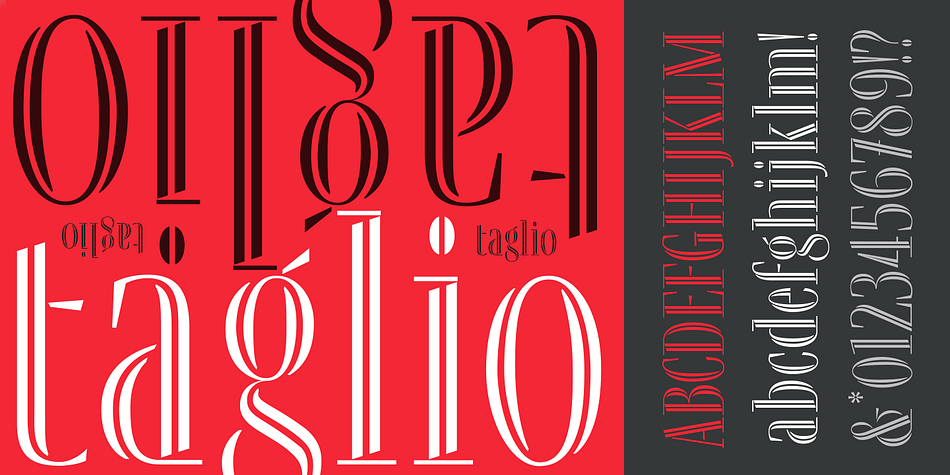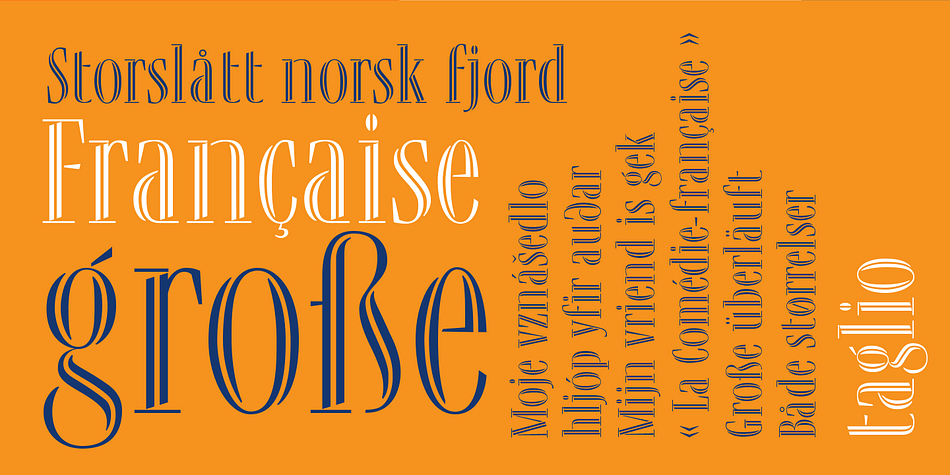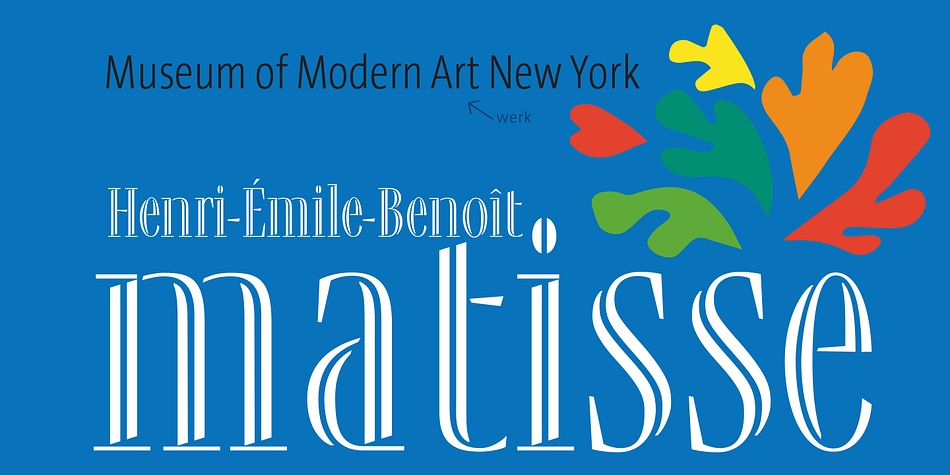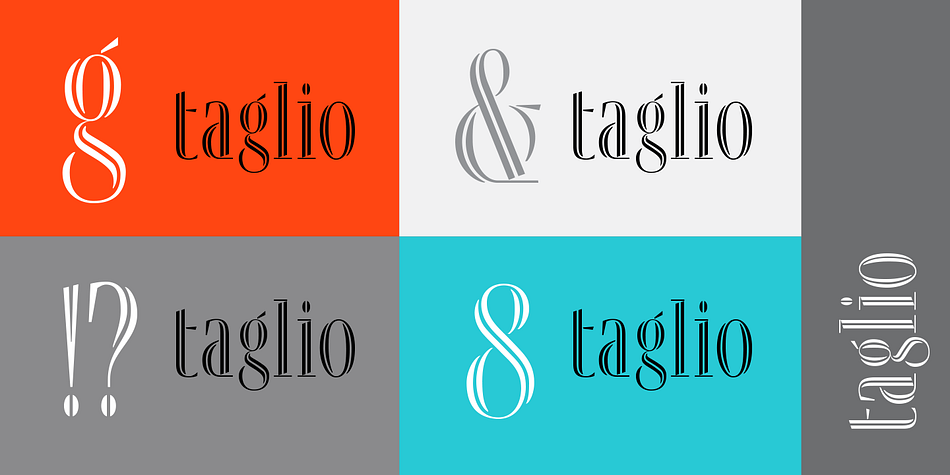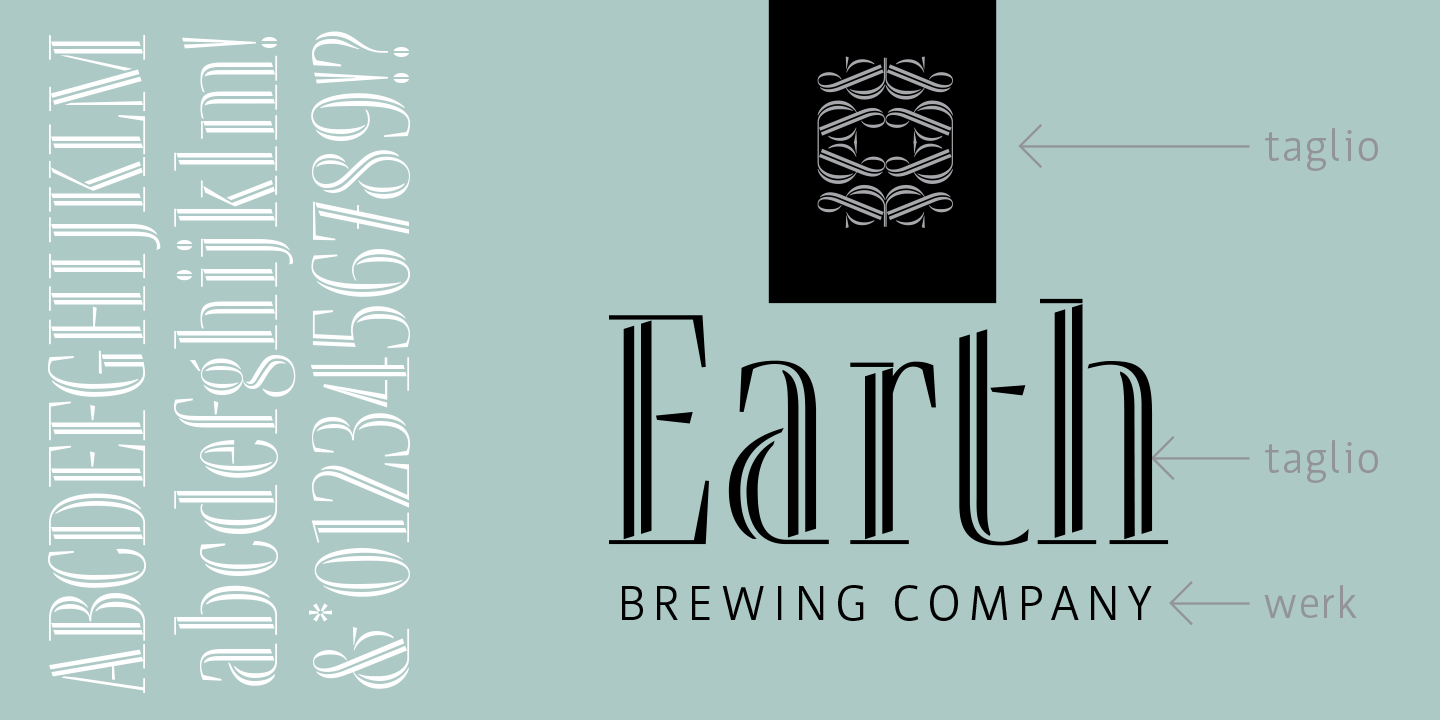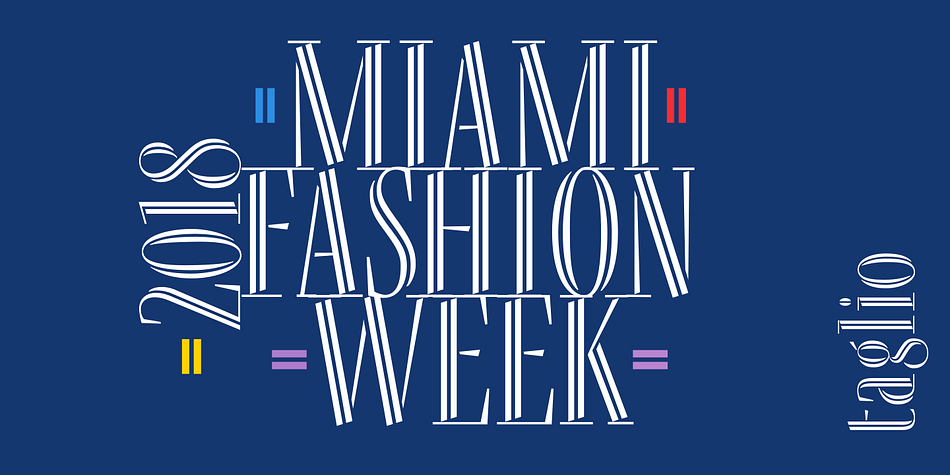
Taglio is a display serif font published by Wilton Foundry.
Taglio’s name is derived from intaglio, which means “incised carving” or “an impression from an engraving”.
Indeed, Taglio looks like an incised engraving with a contemporary calligraphic interpretation. The down strokes start with a single horizontal line that curves into a dual vertical line and ends with the same single line at the base.
The dual elongated strokes create a bold overall impression but is literally twice as sophisticated than if the two lines were solid. That was exactly the goal in creating this font. We managed to create a font that is distinctive, elegant, and crisp that is also intentionally stencilled for more flexibility. For instance, it is ideal for laser cutting signage.
One of the unique features in using the capital glyphs is that they stack perfectly without losing legibility, primarily because of the slanted ends of the dual vertical lines - see the example “Miami Fashion Week” display ad.
Taglio’s unusual style was carefully crafted to come to life at display sizes. It is therefore ideal for use in branding fashion, restaurants, buildings, packaging, museums, signage, etc.
An ideal pairing font is our Werk family which can be seen in some of the images above. Taglio has a sparkling and sophisticated personality that will absolutely delight!